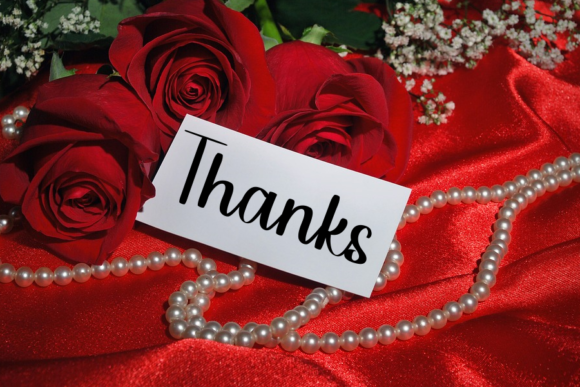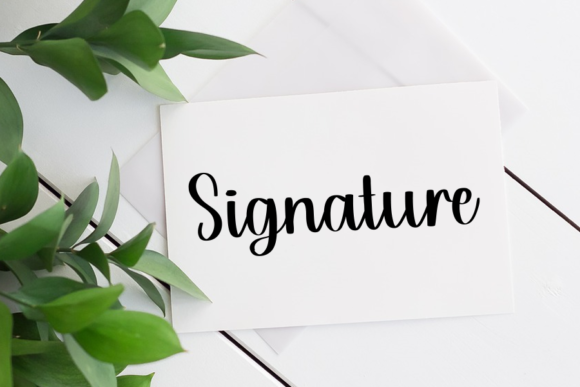
Welcome September Font
db-ku.com - Script & Handwritten -- Welcome September is a lovely script font featuring charming, playful characters that seem to dance along the baseline. Add this font to your most creative ideas, and notice how it makes them stand out!